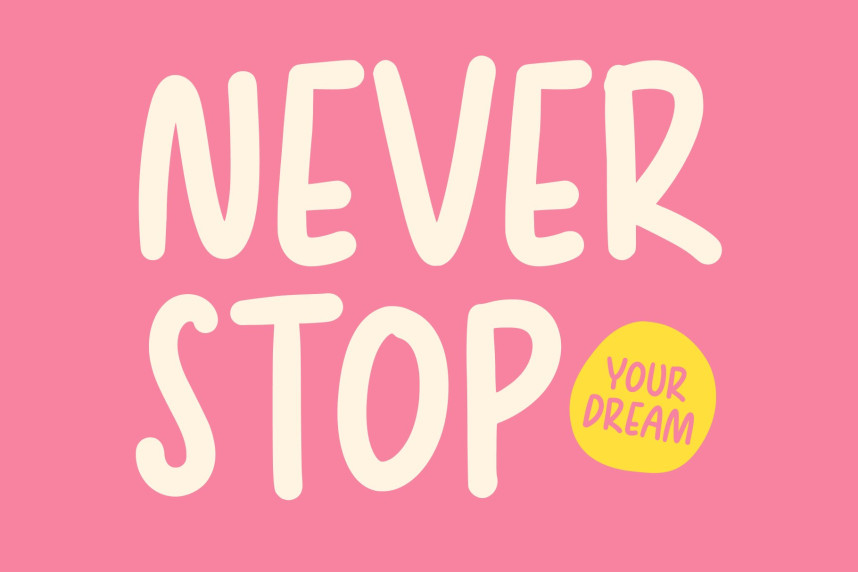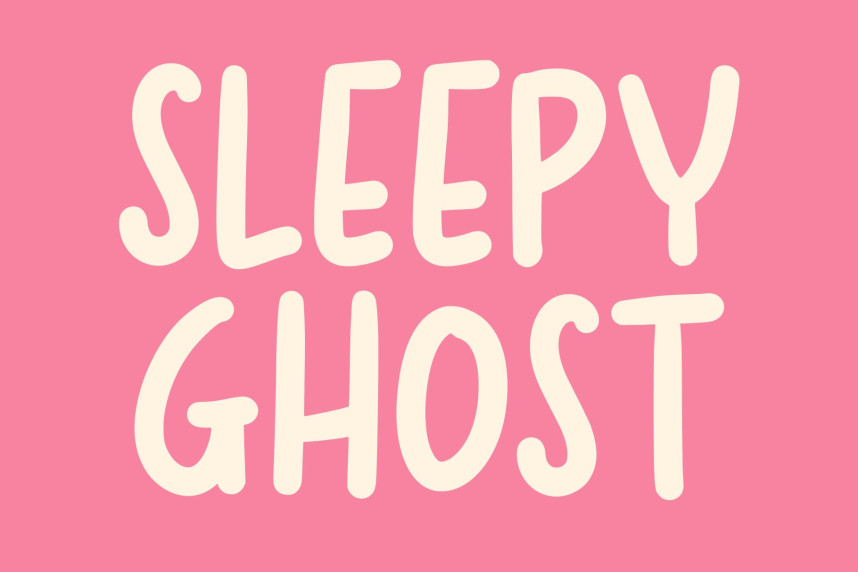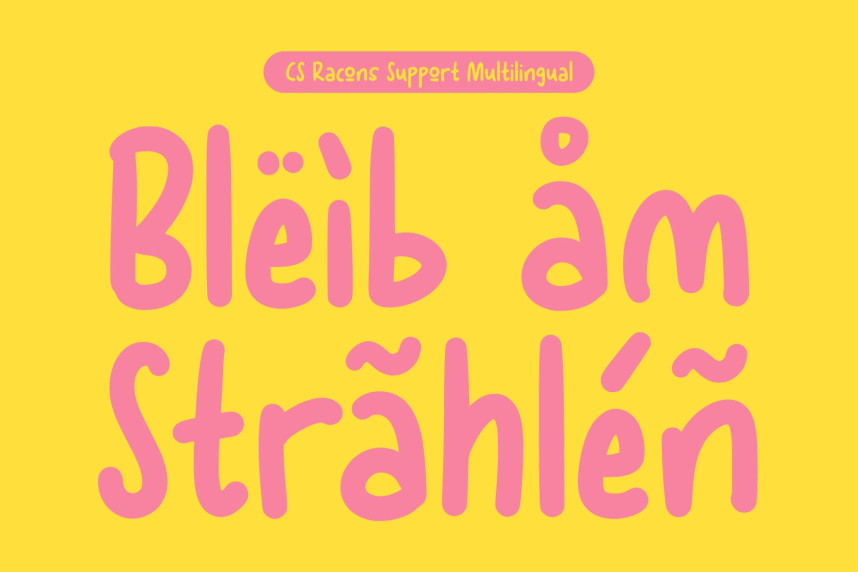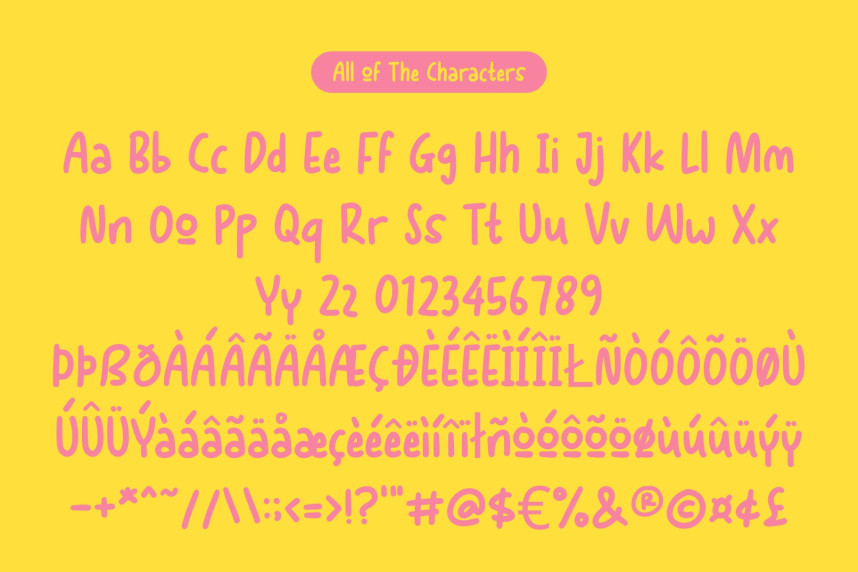
CS Racons Font
CS Racons Font: Casual Charm for Playful Designs Cute Handwritten Font. This is a cute display handwritten font that brings friendly and expressive personality to any design. Its soft, rounded strokes create a casual charm that makes text feel approachable and lively, perfect for projects that need warmth and a playful touch.